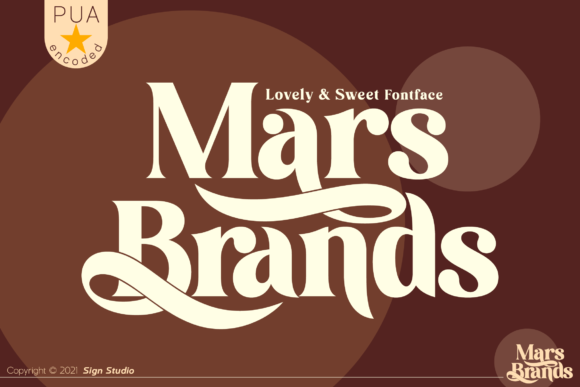
Behold Mars Brands, the enchanting serif font that will ignite your creative passions. A brainchild of Sign Studios, this breathtaking font family beckons you to explore a world of romance and elegance. Mars Brands is not just a font; it's an experience that will leave you spellbound. Let your heartstrings dance with its delicate serifs, as the curves and flourishes intertwine to create a visual symphony.
Embark on an artistic journey with Mars Brands, where emotions find their perfect expression. Craft Valentine's Day letters that exude heartfelt sincerity, bestow wedding invitations with timeless charm, or design posters that capture the essence of love. Let Mars Brands be your creative muse as you design logos that radiate sophistication and create product branding that tells a compelling story.
With Mars Brands, you possess the power to unlock a world of creativity. Its diverse range of ligatures and alternative characters, from uppercase to lowercase, opens up endless possibilities. Unleash your imagination and let your designs bloom with individuality and style.
Mars Brands is meticulously crafted to be PUA encoded, ensuring effortless access to all its glyphs and swashes. This technical finesse empowers you to incorporate intricate details and flourishes into your creations with remarkable ease.